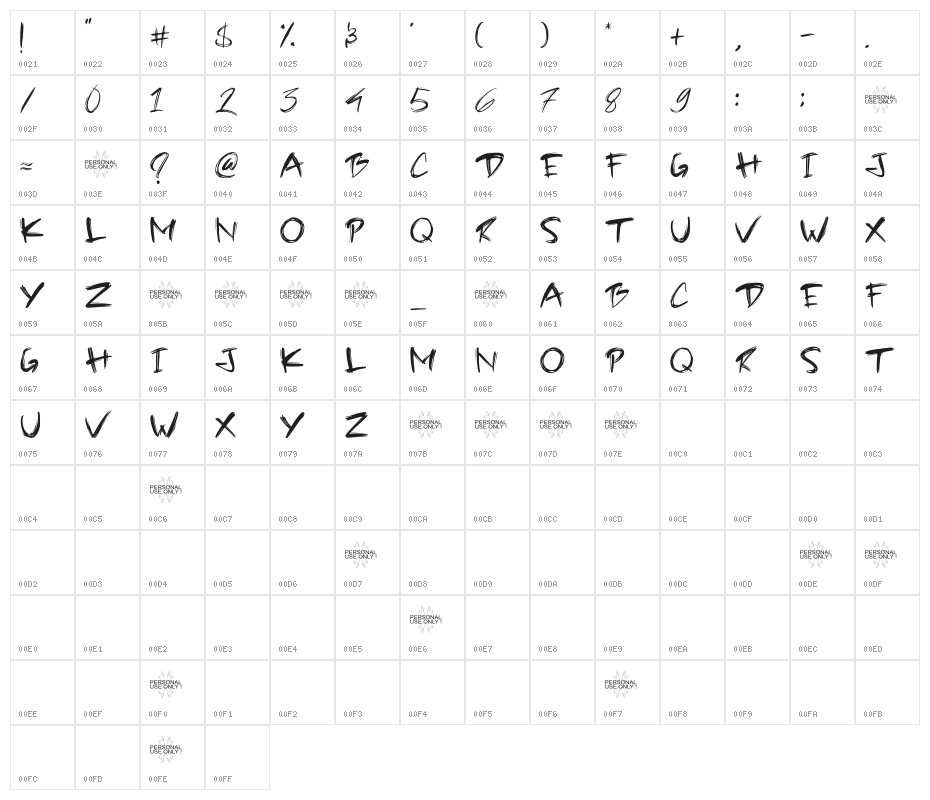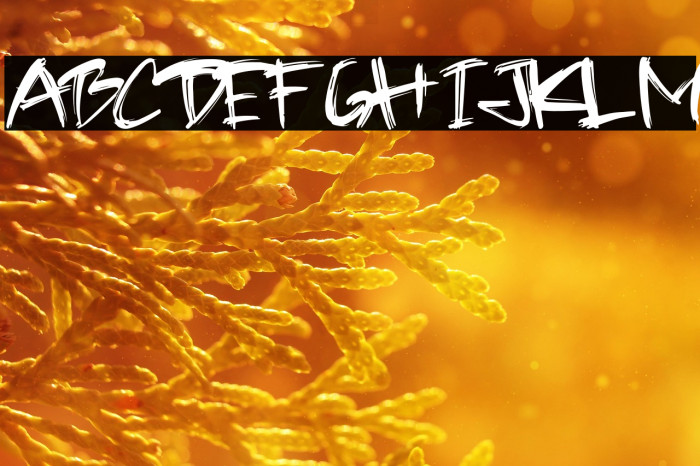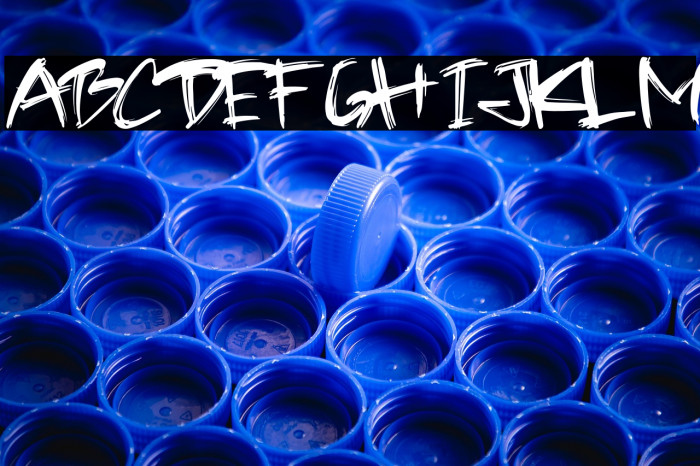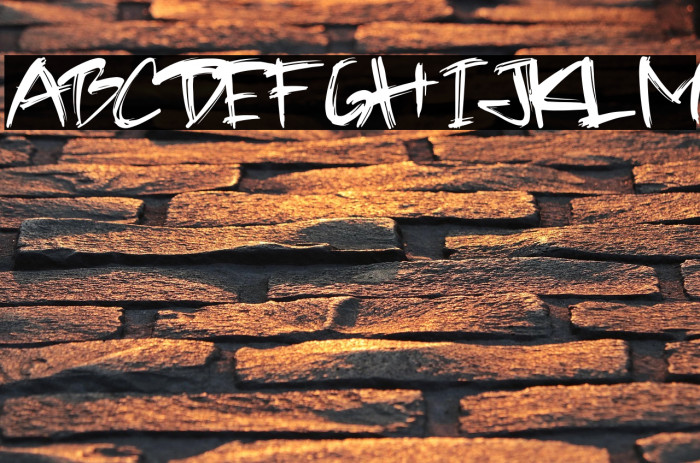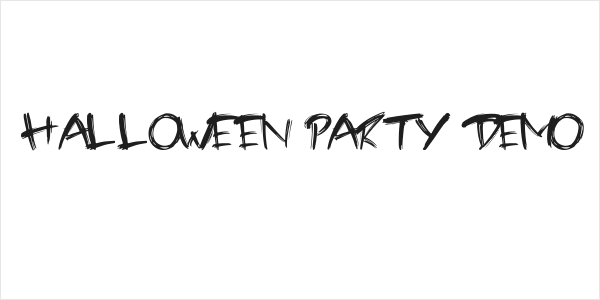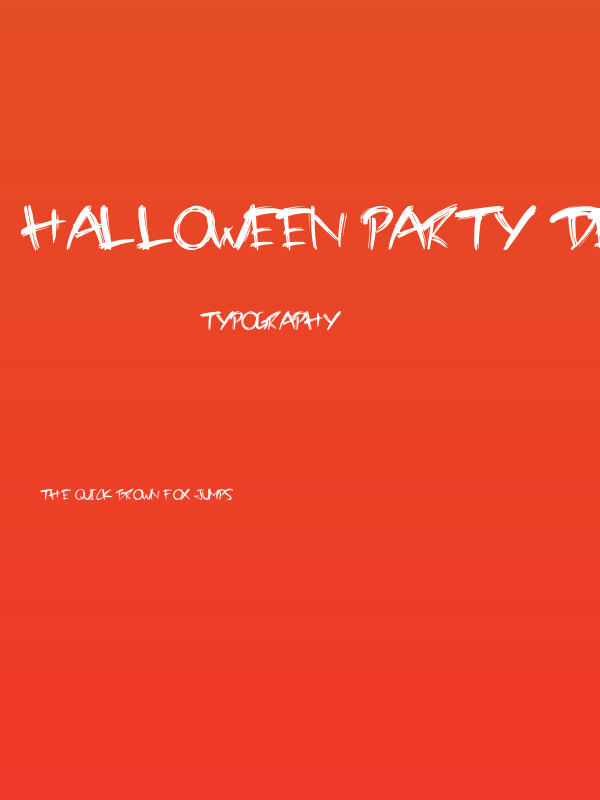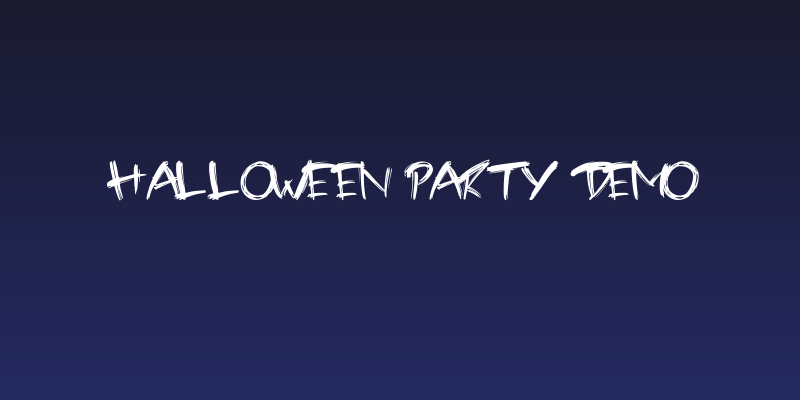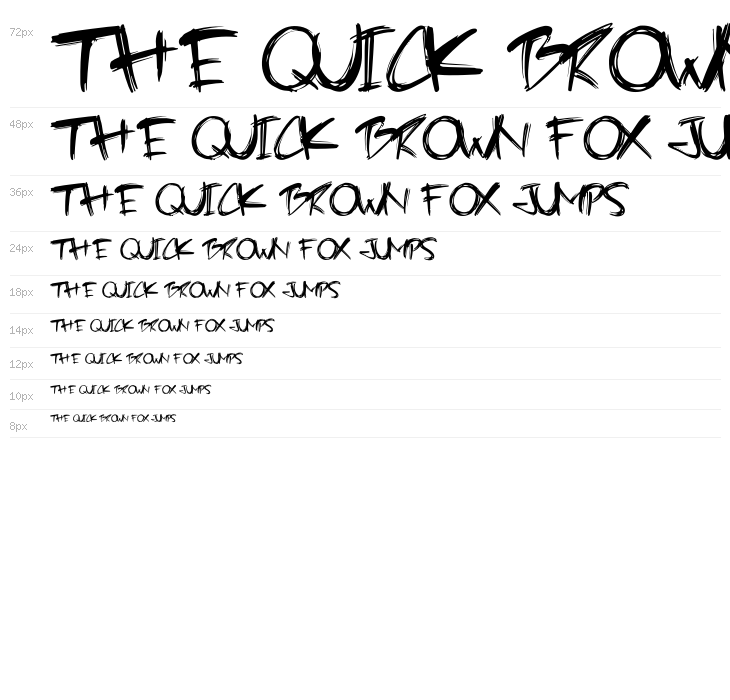
Halloween party demo Font
Halloween party demo Description
This font features a bold and expressive handwritten style, characterized by its dynamic and irregular strokes. The letters have a playful, slightly chaotic appearance, with varying thicknesses that add a sense of movement and energy. The uppercase and lowercase letters maintain a consistent style, while the numerals and special characters complement the overall aesthetic. This font's unique and edgy design makes it ideal for creative and unconventional projects, capturing attention with its distinctive flair.
| Proposed Projects | Perfect for Halloween-themed designs, posters, party invitations, and edgy branding projects. |